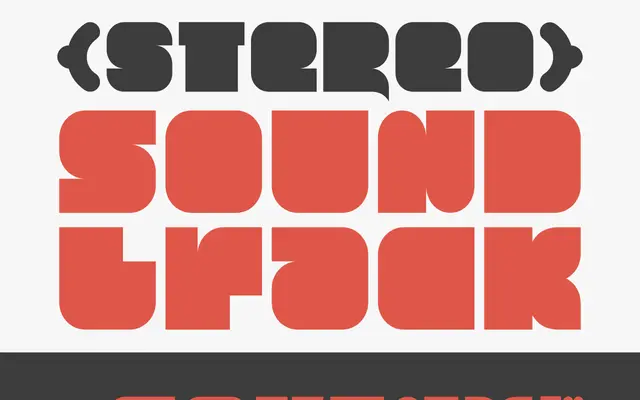
CA Kink
A single-weight techno display face by Thomas Schostok, originally drawn for a book cover and suited to space-themed editorial and headline work.
Designed initially for a book cover, CA Kink occupies a narrow but clear niche as a headline typeface with a techno or sci-fi inflection. A single Regular style covers Western and Central European encodings across 207 glyphs. Its tight scope makes it a focused choice for poster, title or branding contexts where a space-adjacent aesthetic is wanted.
The foundry explicitly classifies CA Kink as Display Techno, and its origins as a book cover headline font with space-theme suitability confirm a narrow display application with a mechanistic or futuristic character.